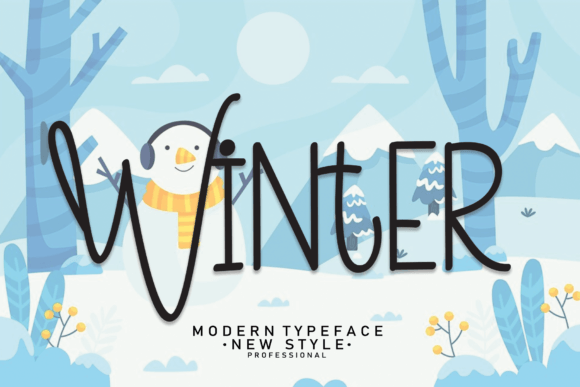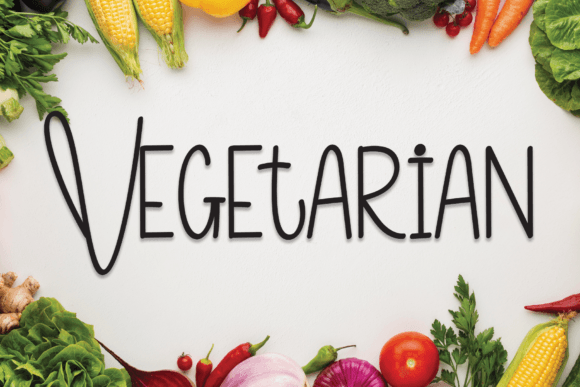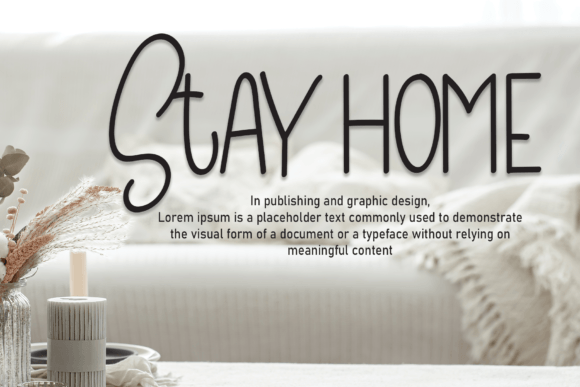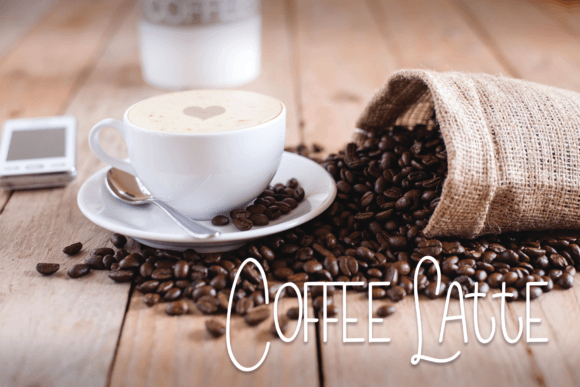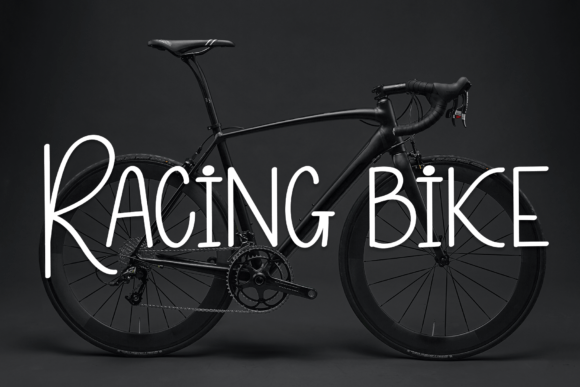
Winter Font
About Winter Font Download
The Winter Font Download is a fun and friendly handwritten script that brings warmth and personality to every creative project. With its casual flow and approachable charm, this typeface is perfect for crafts, invitations, greeting cards, posters, digital content, and branding. Its versatile style makes it a favorite choice for designers who want a handwritten look that feels both stylish and readable.
A Fun and Friendly Handwritten Script
Unlike generic fonts, the Winter script font blends casual handwritten curves with a smooth, modern finish. As a result, it feels cheerful, creative, and adaptable. This makes it an excellent option for projects that require typography with personality while keeping clarity intact.
Handwritten fonts always make personal designs more special. The Winter Font is ideal for wedding invitations, seasonal greeting cards, thank you notes, and birthday stationery. Moreover, its natural rhythm ensures your designs feel heartfelt and elegant.
Branding and Logo Design with Winter Font
Typography is a key element in brand identity. The Winter handwritten font is excellent for boutique logos, packaging, and promotional campaigns. In addition, its friendly strokes help businesses appear approachable while still maintaining a professional style.
Posters, Titles, and Creative Displays
The Winter Font Download works perfectly for posters, banners, and magazine layouts. Therefore, it adapts to both small-scale and large-scale projects while keeping its handwritten charm intact.
In today’s online space, fonts must stand out while staying versatile. The Winter typeface integrates smoothly into Instagram posts, Pinterest graphics, YouTube thumbnails, and blogs. Its friendly handwritten design ensures your digital projects look polished and engaging.
Why Designers Choose Winter Typeface
Designers appreciate fonts that offer creativity without losing readability. Many handwritten scripts may look artistic but are difficult to use at smaller sizes. However, the Winter handwritten script keeps its casual charm while remaining legible. This makes it a reliable choice for professionals and hobbyists alike.